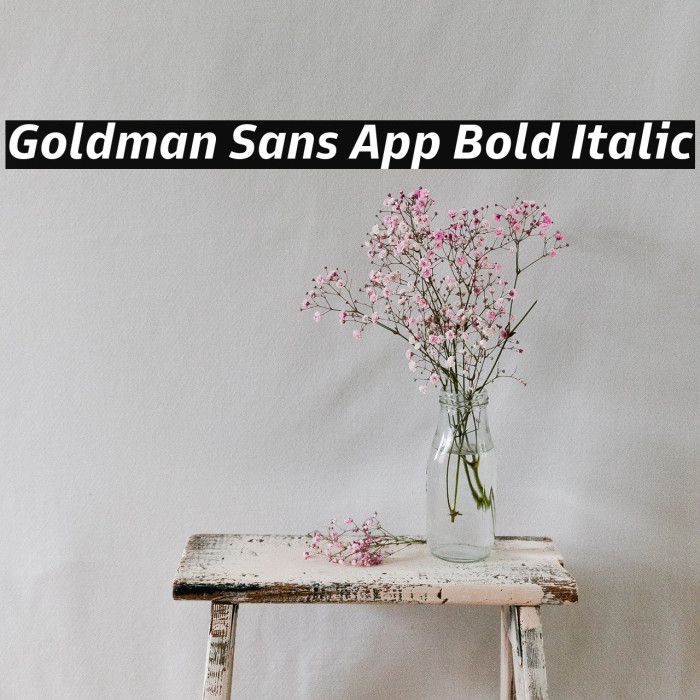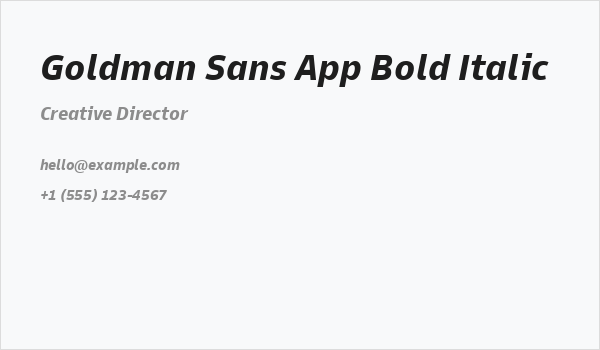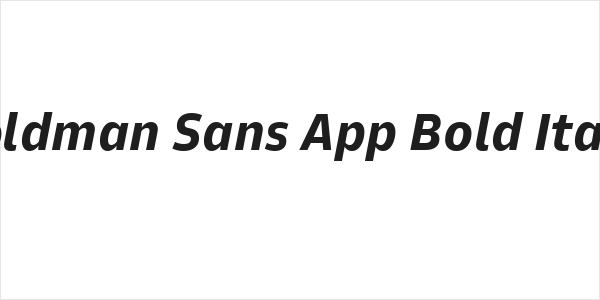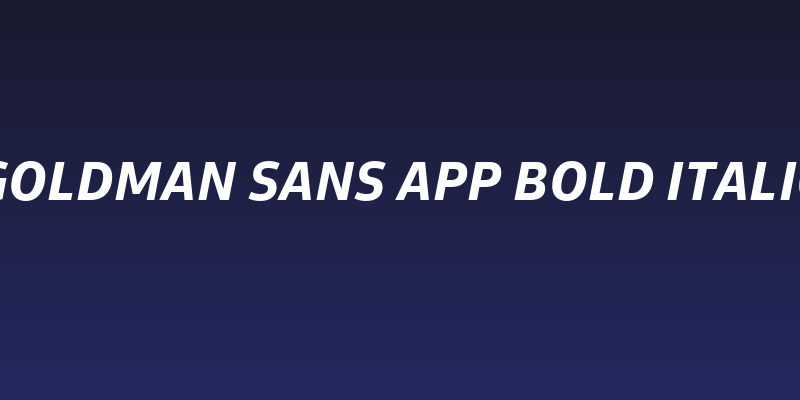
Goldman Sans App Bold Italic Font
Goldman Sans App Bold Italic Description
This typeface features a bold and italicized style, offering a modern and dynamic appearance. The letters are slightly slanted, enhancing the italic effect, while maintaining a strong and confident presence due to the bold weight. The sans-serif design ensures clean lines and a contemporary feel, making it versatile for various applications. The characters are well-proportioned, with consistent stroke widths that provide a harmonious look. The spacing between characters is balanced, allowing for readability without compromising the bold aesthetic. This font is suitable for digital and print media, offering clarity and impact.
| Use Case | Headlines, Logos, Digital Media |
| Proposed Projects | Ideal for branding, headlines, digital media, advertising, and modern web design. |